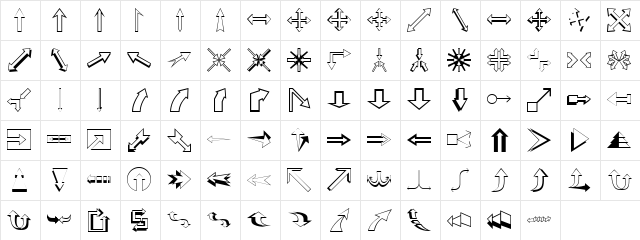
Pointers outline Regular
Design Context for Pointers outline
Pointers outline is built around its visual character rather than neutral utility - its distinctive forms are designed to make an impression at display sizes.
Font Pairing: Pair with a clean neutral sans-serif for body copy to let Pointers outline's character lead without overwhelming the composition.
Pro Tip: Use Pointers outline exclusively at display sizes - it was designed to be seen, not read at length. Let a neutral companion handle body copy.